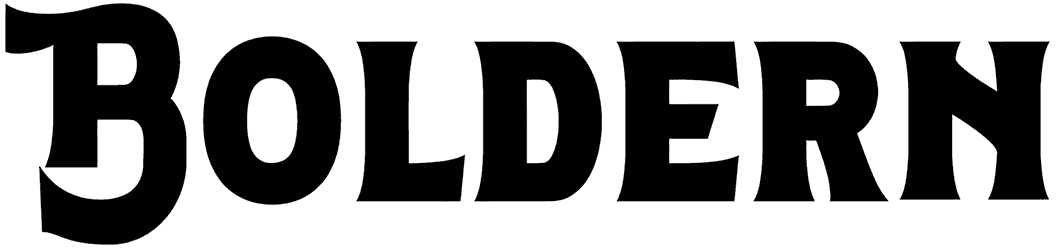
If you are really passionate about having a retro font for designing captivating artwork, then we would like to advise you to pick up a marvelous masterpiece such as the Bashan. Since this serif font can provide you with aesthetic features without losing its solidity, it really deserves to be on your radar for designing social media posts, book covers, magazines, flyers, or applications.